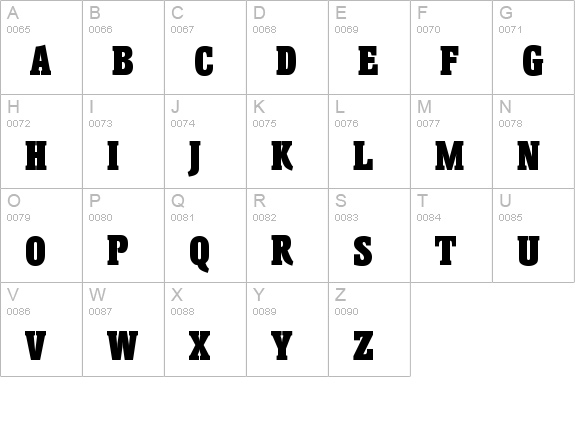
Helium-Heavy is a heavy, high-impact variant in the Helium typeface family \xE2\x80\x94 well suited to high-impact headlines, posters, and display advertising.
Introducing the breathtaking Helium-Heavy font, a truly captivating typeface that is sure to leave a lasting impression. This font exudes a sense of strength and boldness, making it perfect for attention-grabbing headlines, striking logos, and impactful designs. Helium-Heavy is a unique blend of elegance and power, with its thick, heavy strokes demanding attention and its refined curves adding a touch of sophistication. Each letter has been meticulously crafted to embody a sense of authority and confidence, ensuring that your messages are delivered with utmost impact. But what truly sets Helium-Heavy apart is its versatility. This font effortlessly adapts to a variety of design projects, from modern and edgy to classic and timeless. Whether you're designing a cutting-edge magazine cover, a sleek corporate brochure, or a stylish website, Helium-Heavy will elevate your creative vision to new heights. And the best part? Helium-Heavy is available for free! Yes, you read that right. You can now freely download this stunning font at FontsMarket.com, ensuring that your design projects are not only eye-catching but also cost-effective. Say goodbye to expensive licensing fees and hello to unlimited creative possibilities. With its captivating presence, versatile nature, and the added bonus of being freely available, Helium-Heavy is the ultimate font choice for designers, creatives, and anyone seeking to make a memorable impact. So don't miss out on this incredible opportunity to elevate your designs – head over to FontsMarket.com now and experience the power and beauty of Helium-Heavy font for yourself.